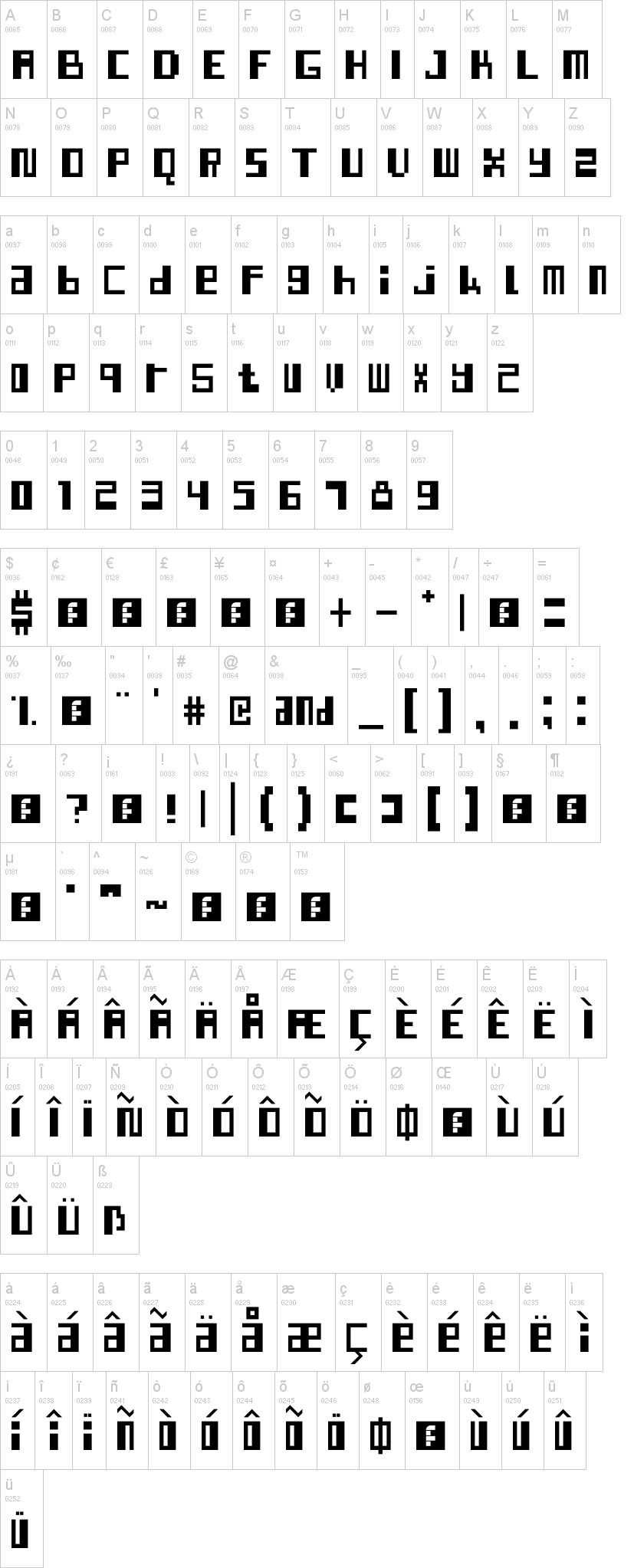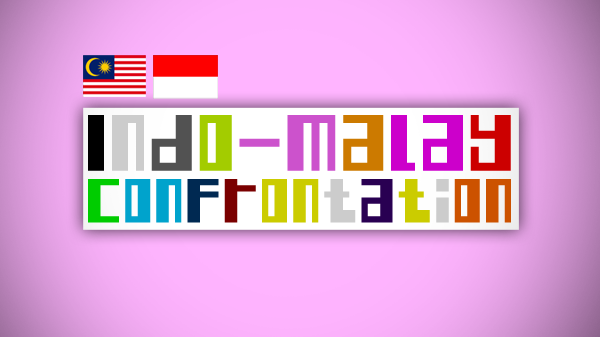
Note of the authorThe IndonesiaMalaysia confrontation (also known as Konfrontasi in Indonesian and Malay) was an undeclared war between Indonesia and United Kingdom-backed Malaysia over the future of the island of Borneo from 1962 to 1966. The origins of the conflict lay in Indonesian attempts to destabilise the new federation of Malaysia, which came into being in 1963.